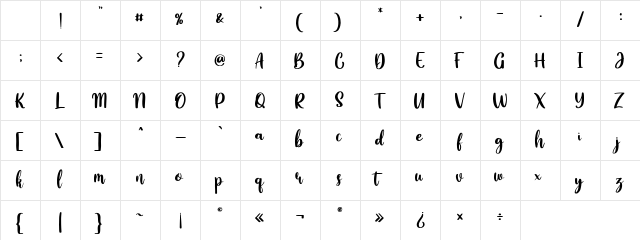
Complete Angelina Alt Demo glyph index. Displaying only characters natively supported by Angelina Alt Demo font.
Angelina is a composed and adaptable typeface that performs quietly and consistently across a wide range of design contexts.